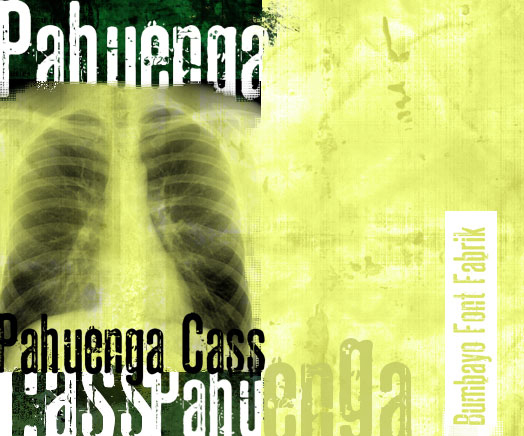
PahuengaCass is a free eroded display font with tall, tightly drawn letters and a rough industrial edge. Its uneven strokes are scarred by chips, scratches, and scattered ink-like marks. Its blunt curves and narrow forms make the lettering look battered but especially forceful.
Photocopied textures echo its broken surfaces on music posters. That worn, noisy finish also suits streetwear merchandise and publishing tied to punk or underground music.